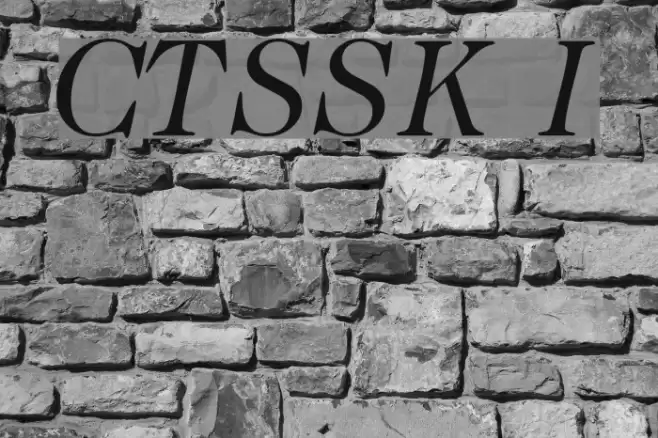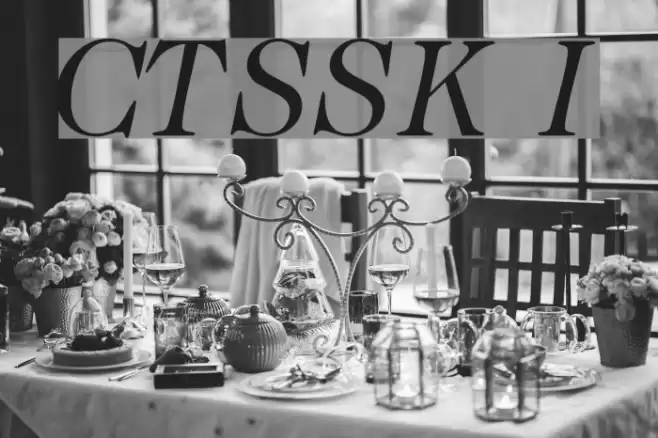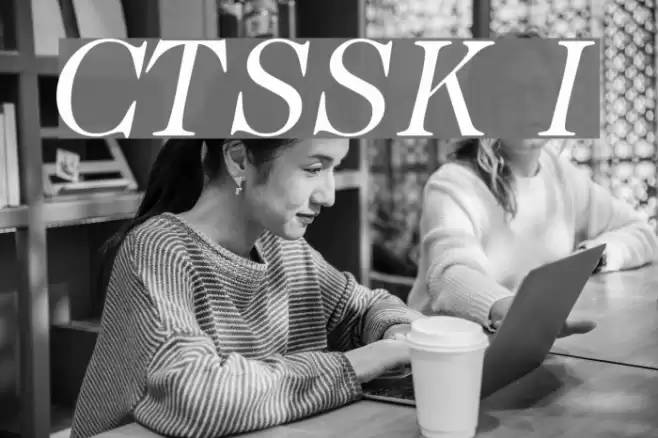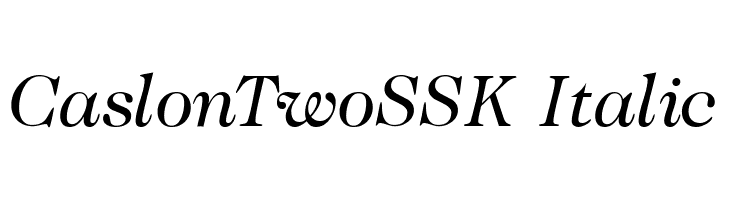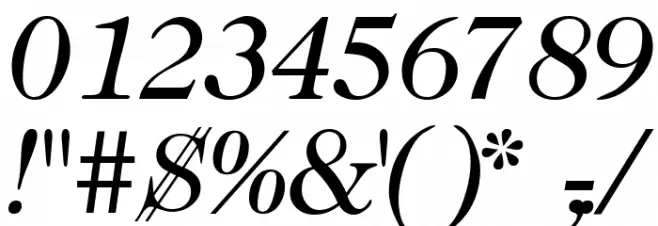
CaslonTwoSSK Italic Font
CaslonTwoSSK Italic Description
This elegant serif font features a classic italic style with a refined and sophisticated appearance. The letters have a slight slant, adding a dynamic and graceful touch to the text. The strokes are moderately thick, providing a balanced contrast that enhances readability while maintaining an aesthetic appeal. The font exhibits traditional serif characteristics with small, pointed serifs that give it a timeless and formal look. It is well-suited for projects that require a touch of elegance and tradition, such as formal invitations, editorial design, and branding for luxury products.
An elegant serif font with a classic italic style and refined appearance from Uncategorized fonts.
- Proposed Projects: Ideal for formal invitations, editorial design, luxury branding, and classic book covers.
- Overall Style: Classic